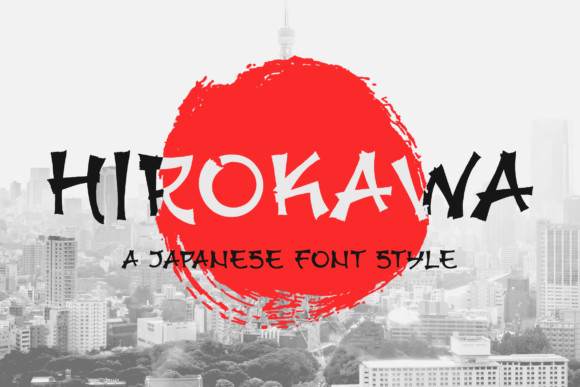
Hirokawa Font
Hirokawa is a bold and genuine Japanese inspired display font. It is daring and unique and it will make each of your creations stand out.